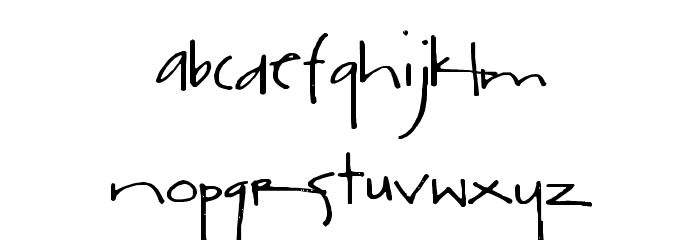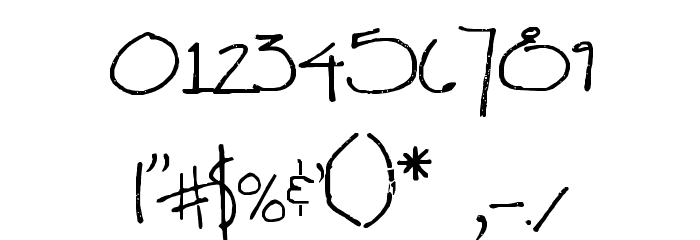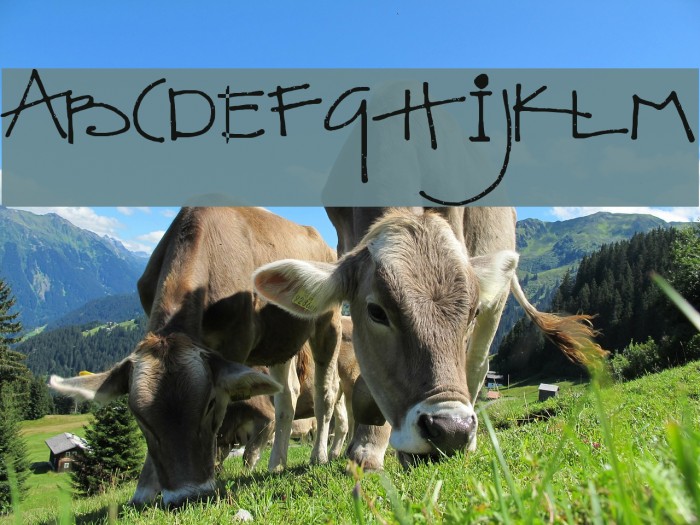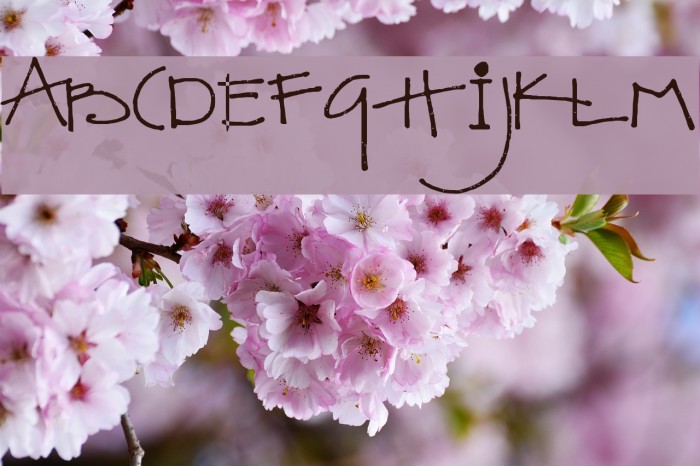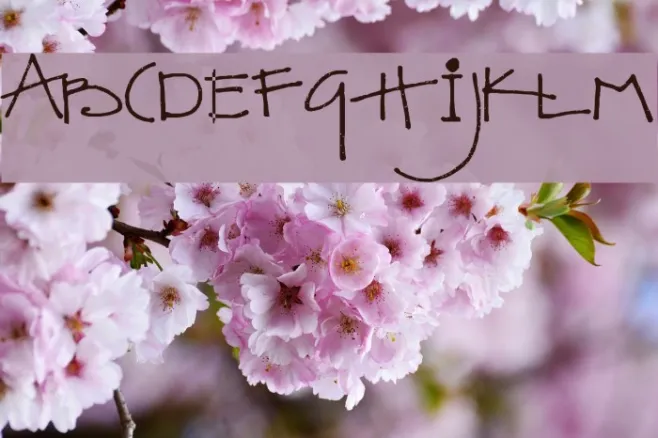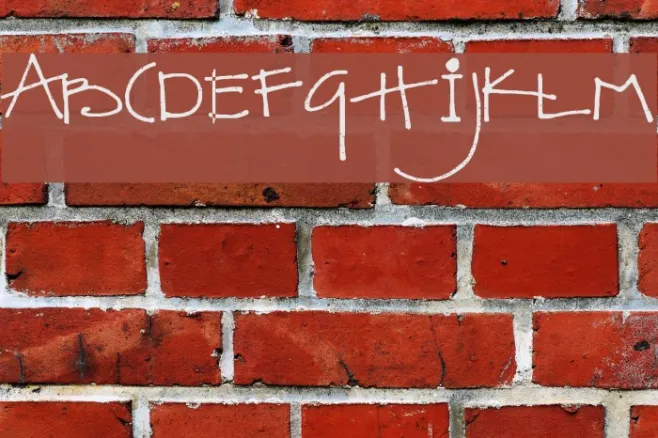
SA_Kiss Font
This font features a playful and casual handwritten style, characterized by its irregular strokes and varying line thickness. The letters have a whimsical, freeform appearance, with some characters displaying unique flourishes and loops. The overall look is informal and artistic, making it suitable for creative projects. The uppercase and lowercase letters maintain a consistent style, while the numerals and special characters blend seamlessly with the alphabet. The font's organic feel and dynamic shapes give it a lively and expressive personality.
A playful, casual handwritten font with irregular strokes and artistic flair.
- Proposed Projects: Ideal for greeting cards, invitations, children's books, and creative branding.
- Overall Style: Casual, Artistic
- Use Case: Logos, Headlines, Creative projects